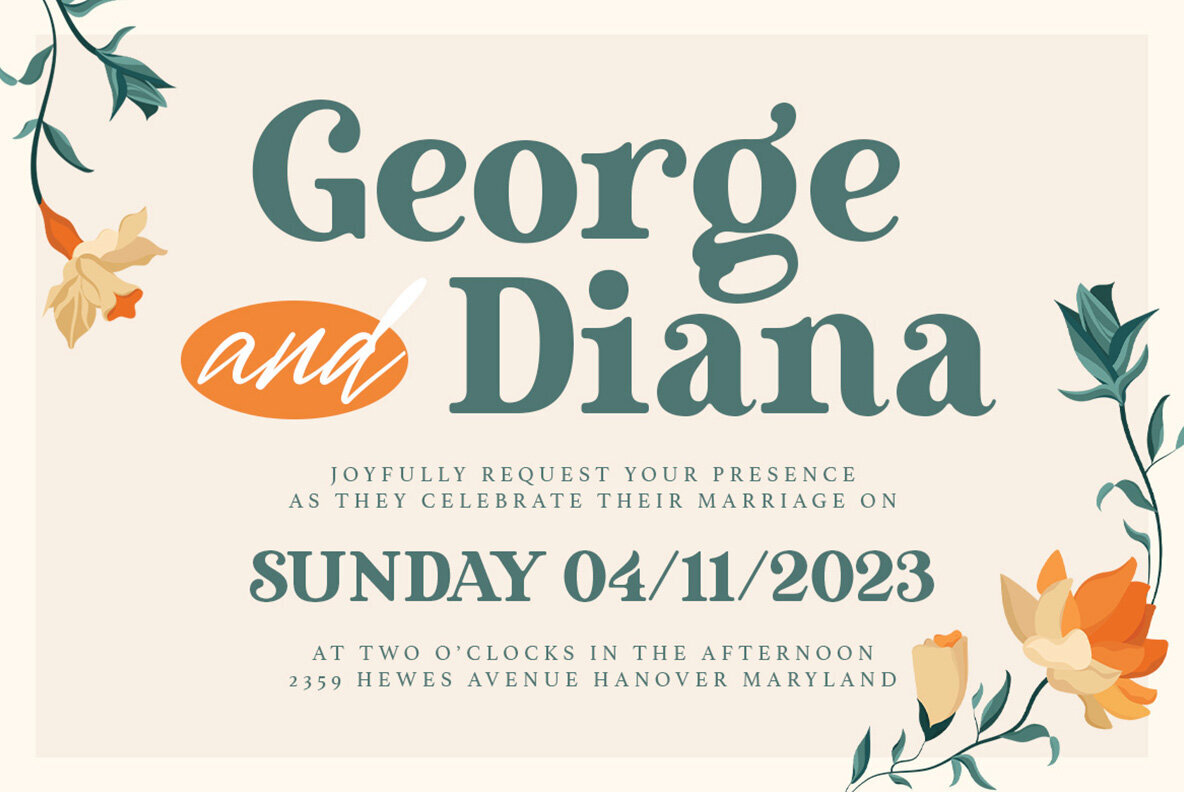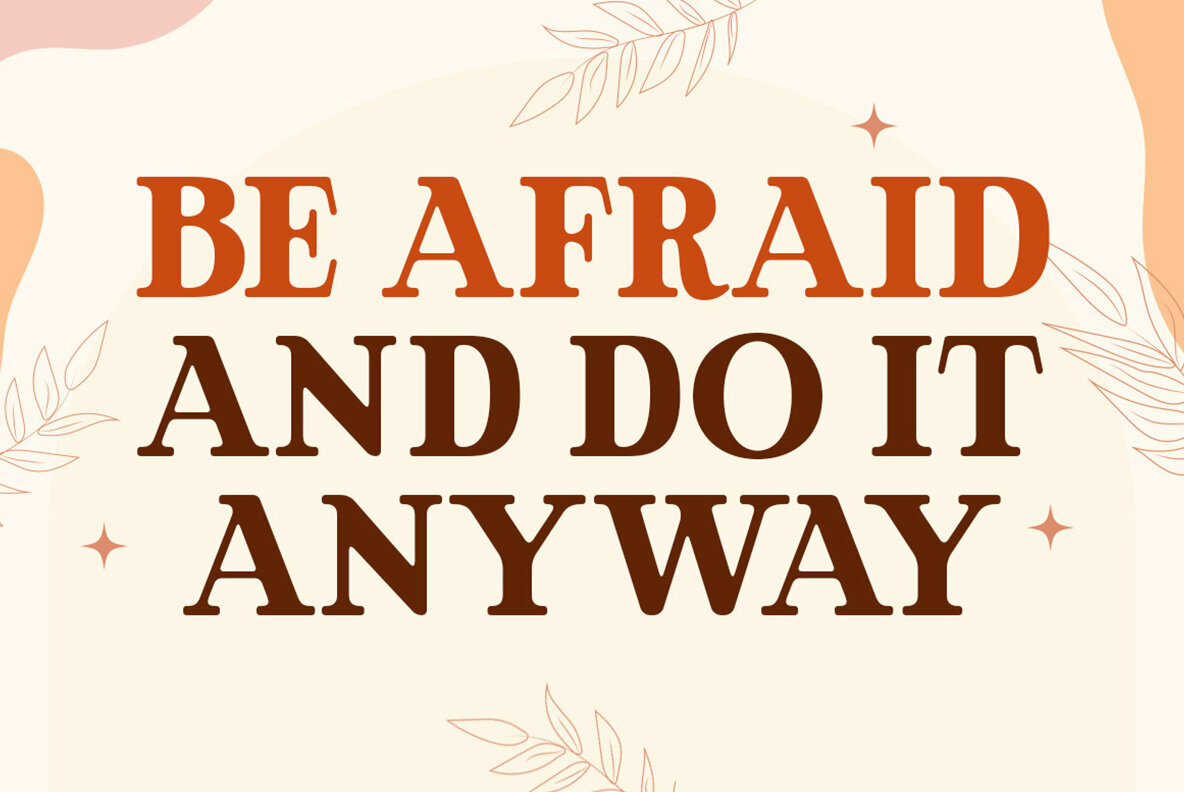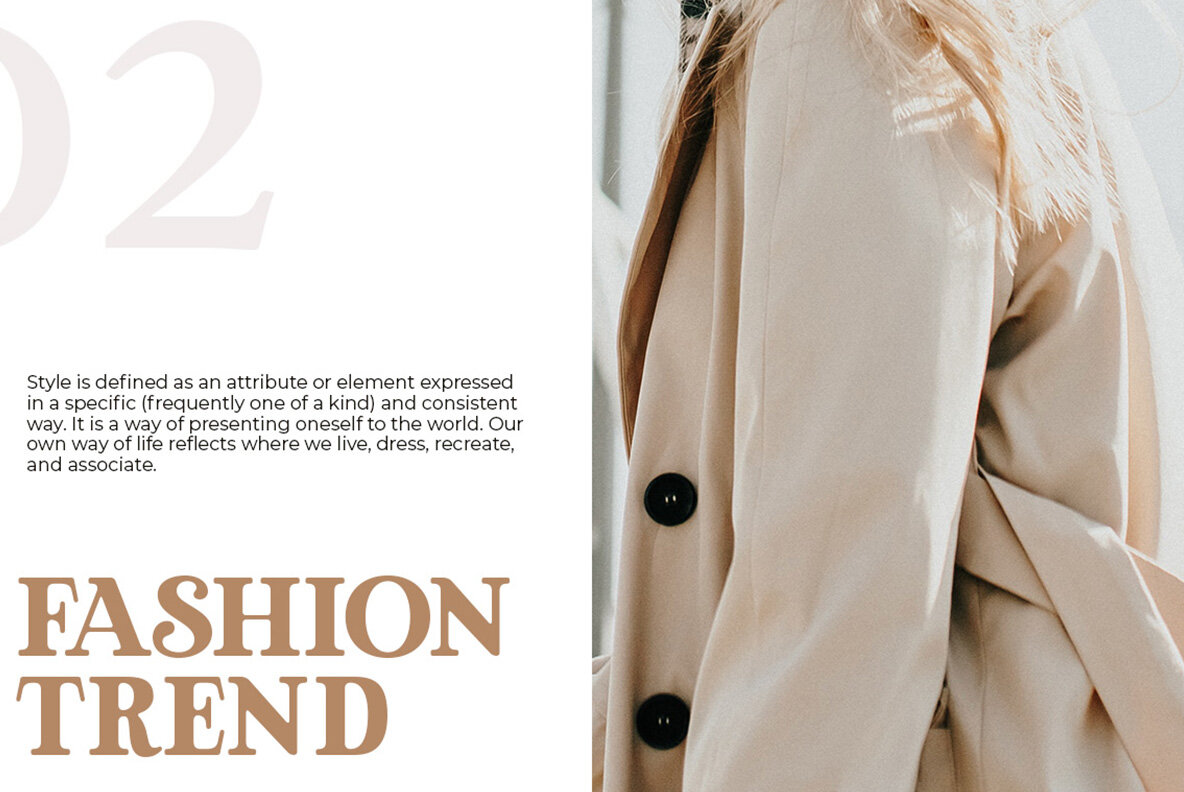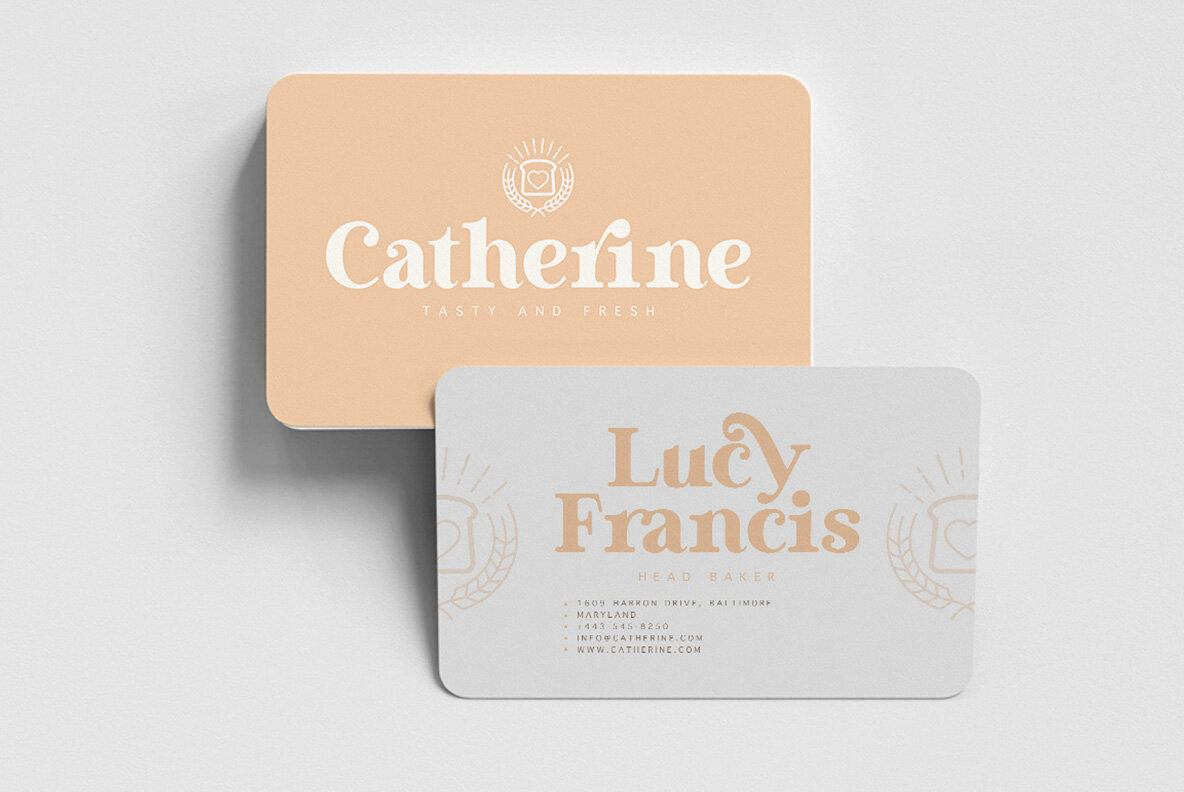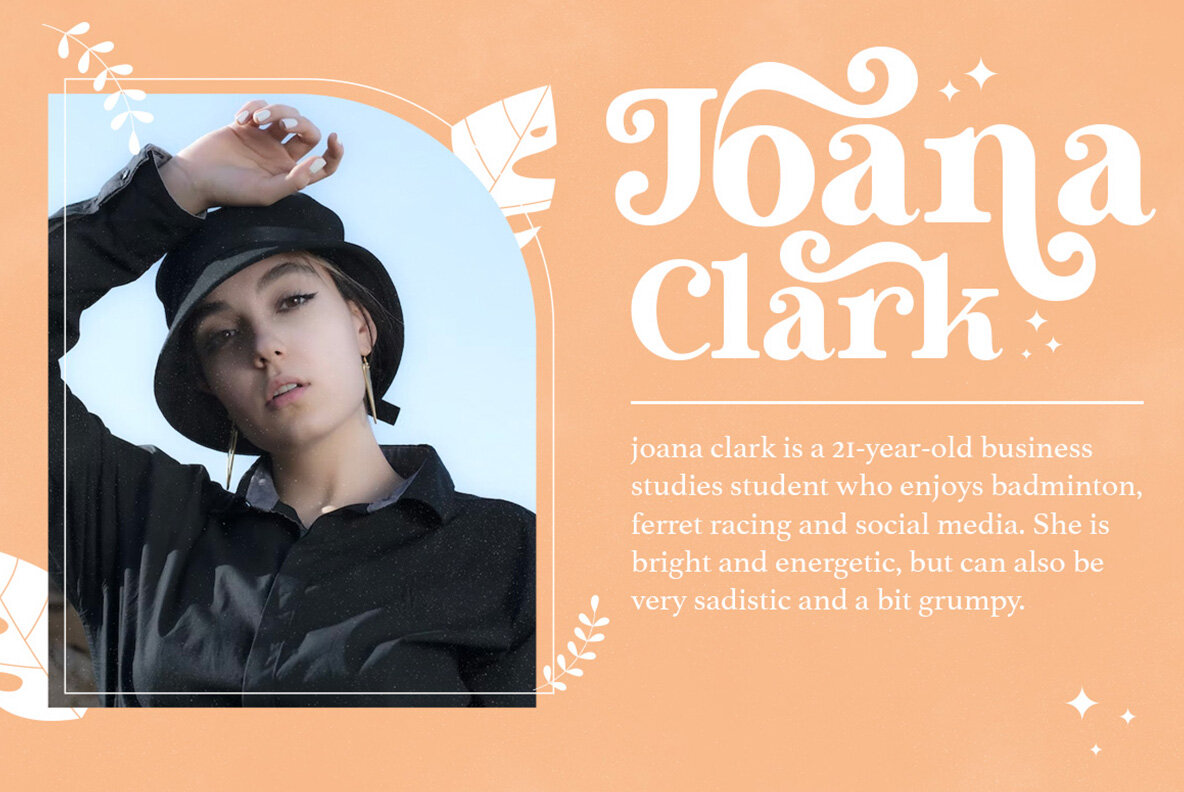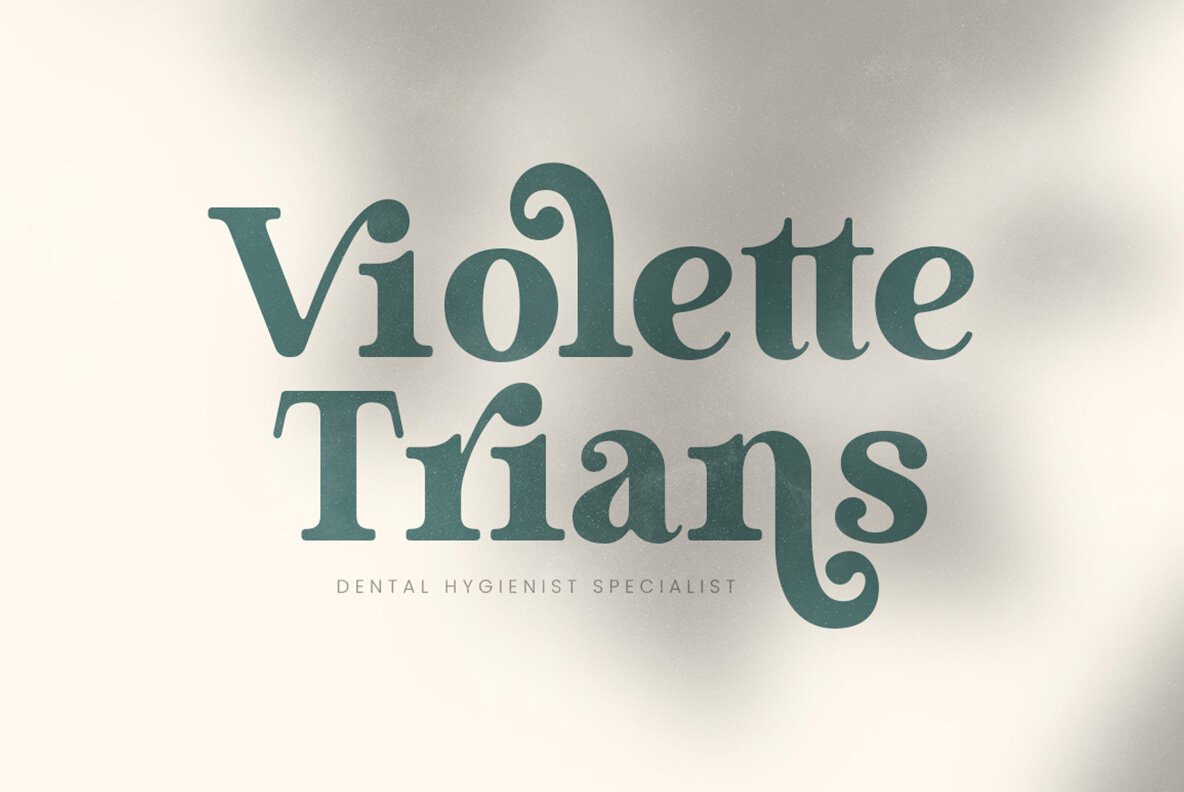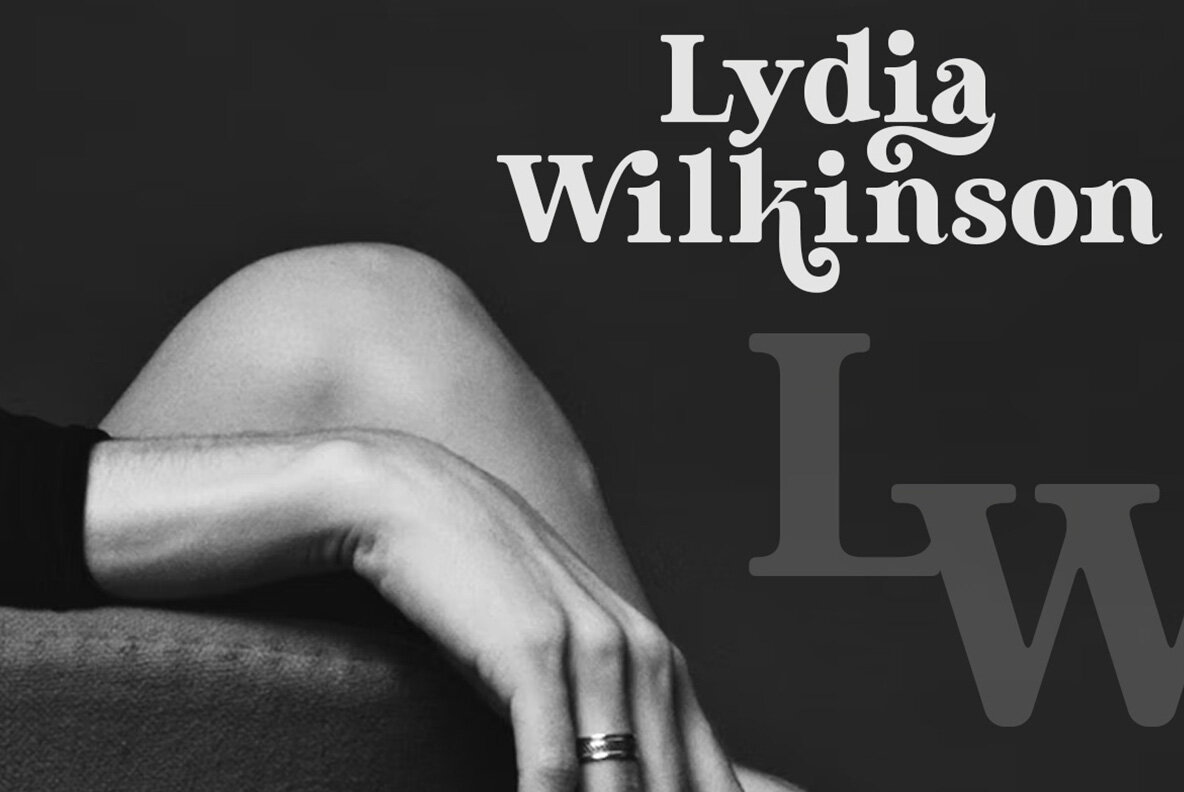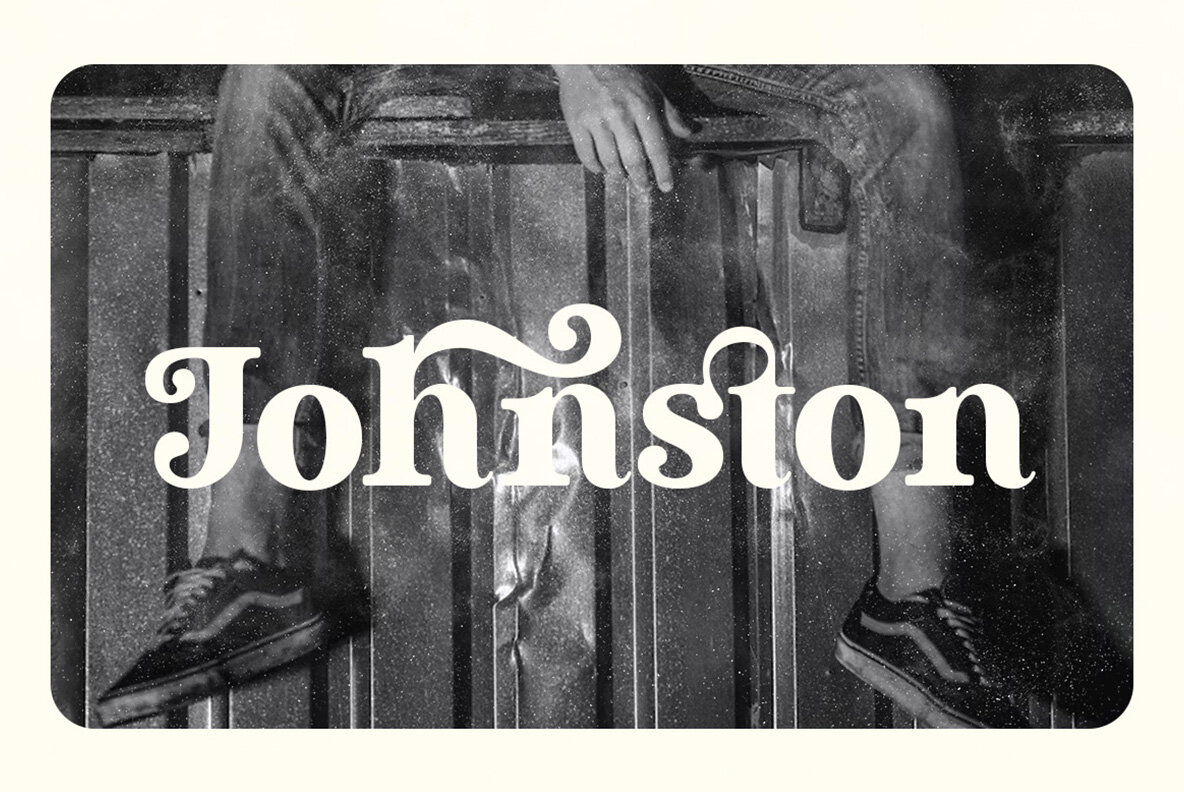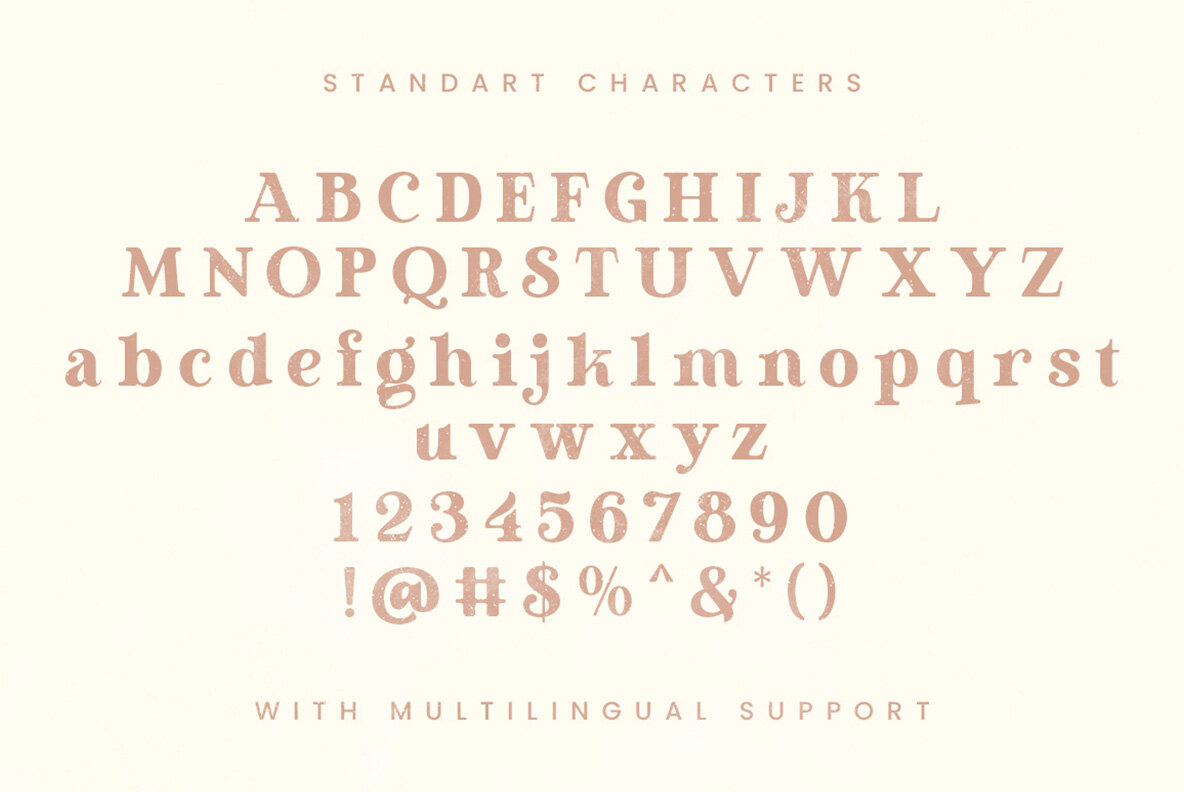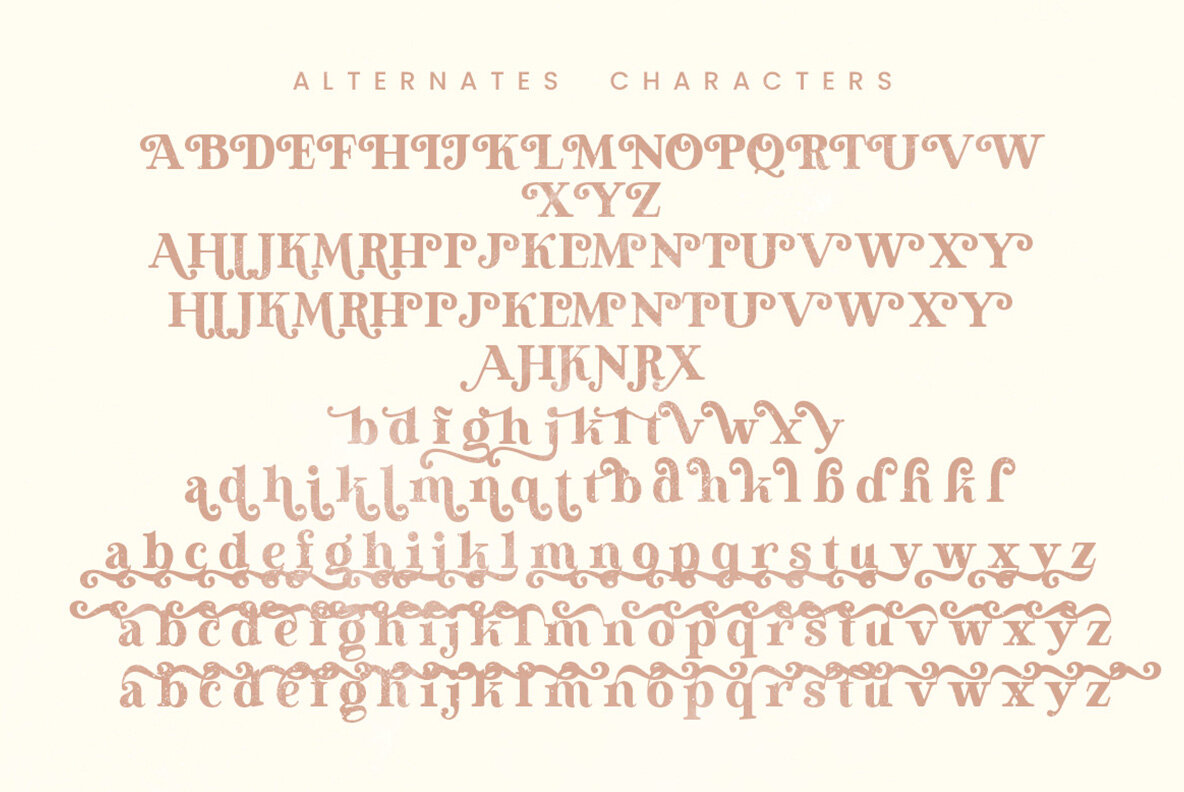
Lintang Font
Lintang Serif Regular
Lintang presents a remarkable blend of firmness and elegance, distinguished by its character and swash alternatives. This display serif font offers a myriad of options to customize your typography, allowing it to shine in various design contexts. Designers seeking to imbue their projects with a sophisticated yet distinctive flair will find Lintang an ideal choice. Features:Lintang: Unique Display Serif for Elegant Designs